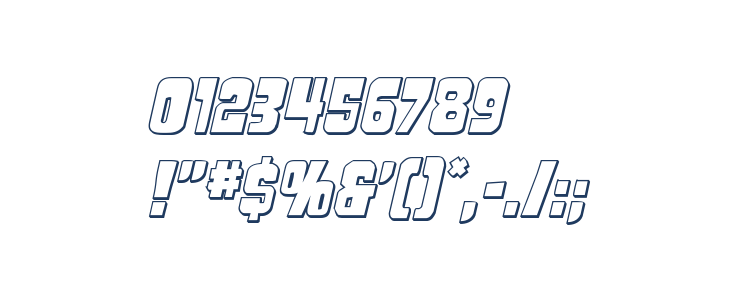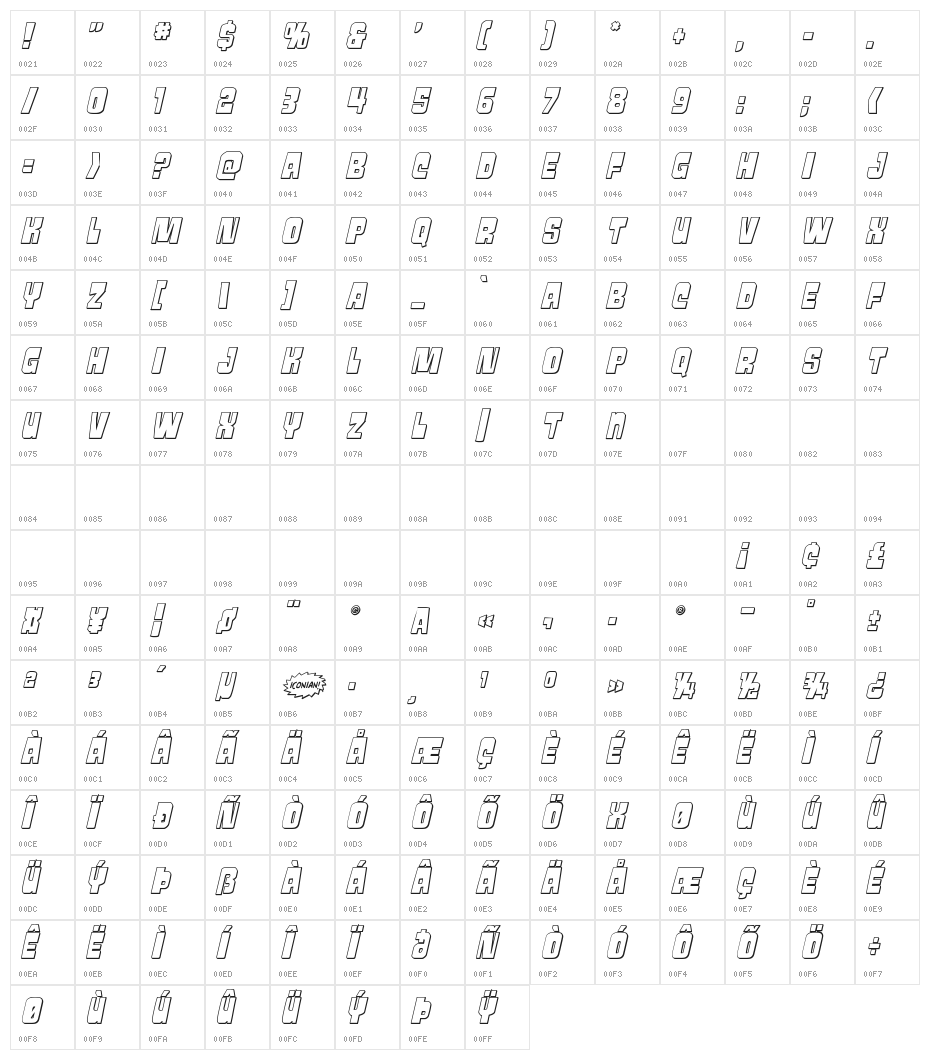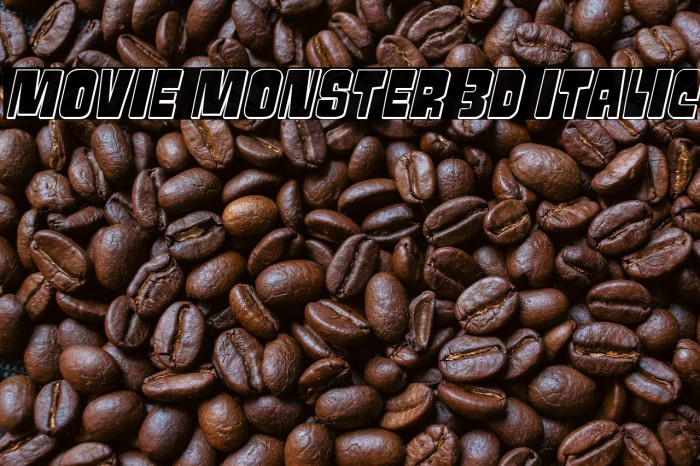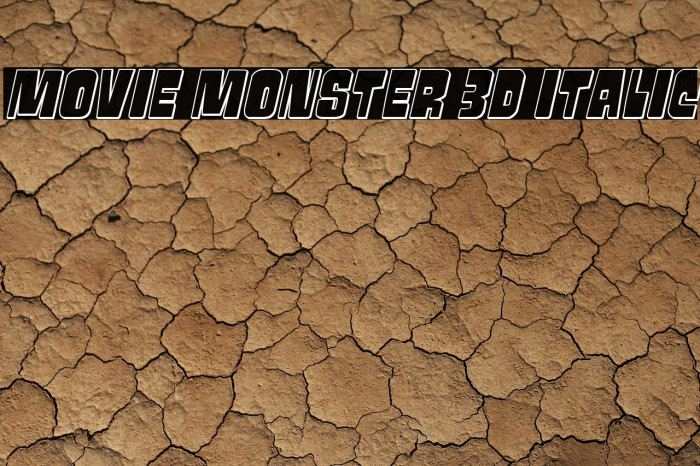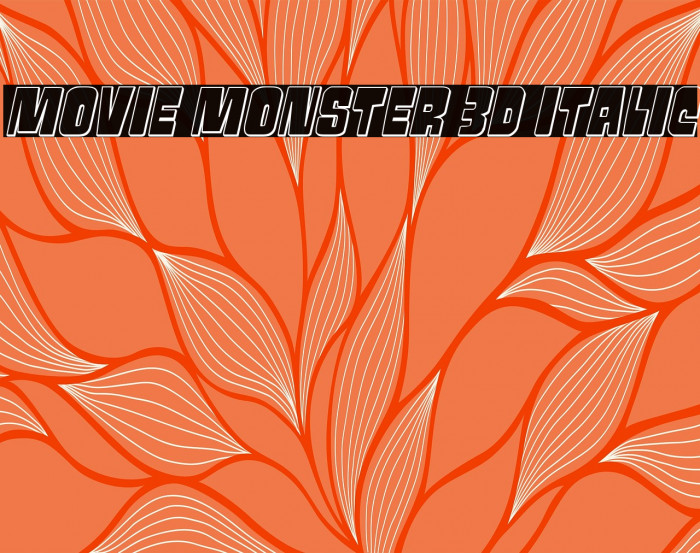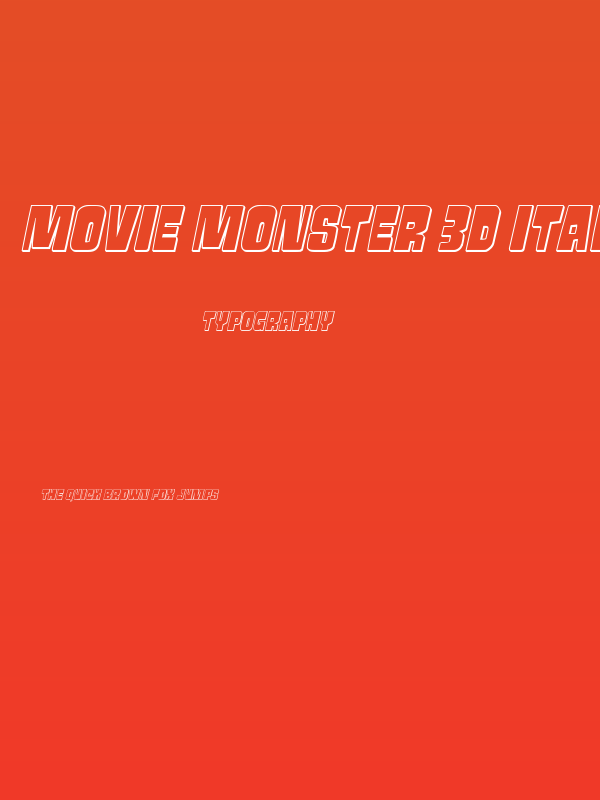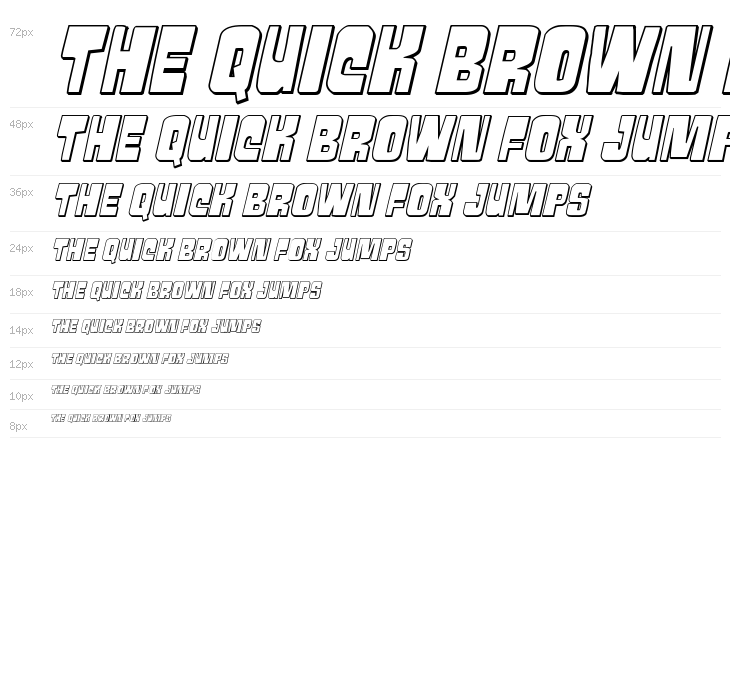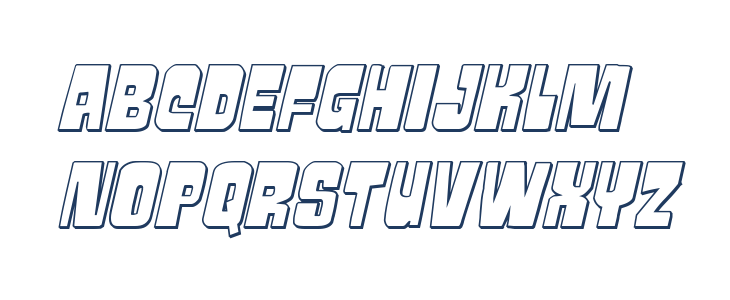
Movie Monster 3D Italic Font
Movie Monster 3D Italic Description
This font features a bold, three-dimensional style with a strong italic slant, giving it a dynamic and impactful appearance. The characters are outlined, creating a sense of depth and movement, reminiscent of classic movie posters or comic book titles. The uppercase letters are particularly striking, with sharp angles and a blocky structure that enhances their boldness. The numbers and special characters maintain this cohesive style, ensuring versatility across different uses. The font's design is both modern and nostalgic, making it suitable for projects that require a dramatic and eye-catching typeface.
| Proposed Projects | Perfect for movie posters, comic book covers, video game titles, and any project needing a bold, dramatic typeface. |